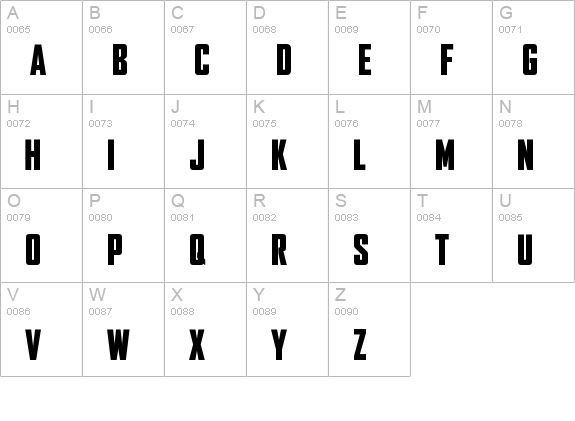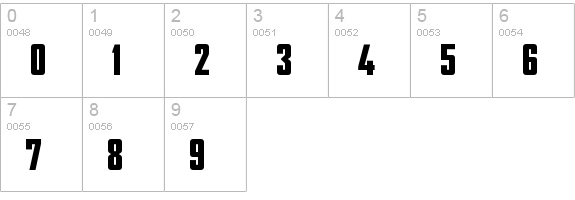
AgencyFB-BlackCondensed is a modern and sleek typeface that exudes sophistication and elegance. Its bold and condensed design makes it perfect for creating eye-catching headlines and titles that demand attention. The sharp and clean lines of this font give a sense of strength and authority, making it ideal for projects that require a strong and impactful visual presence. What's even better is that AgencyFB-BlackCondensed is available for free download at FontsMarket.com. This means you can easily access this premium font without any cost, making it a valuable addition to your design toolkit. Whether you're working on branding, advertising, or any other creative project, AgencyFB-BlackCondensed is sure to elevate your designs to the next level. Don't miss out on the opportunity to enhance your work with this stunning font - get it for free today at FontsMarket.com!